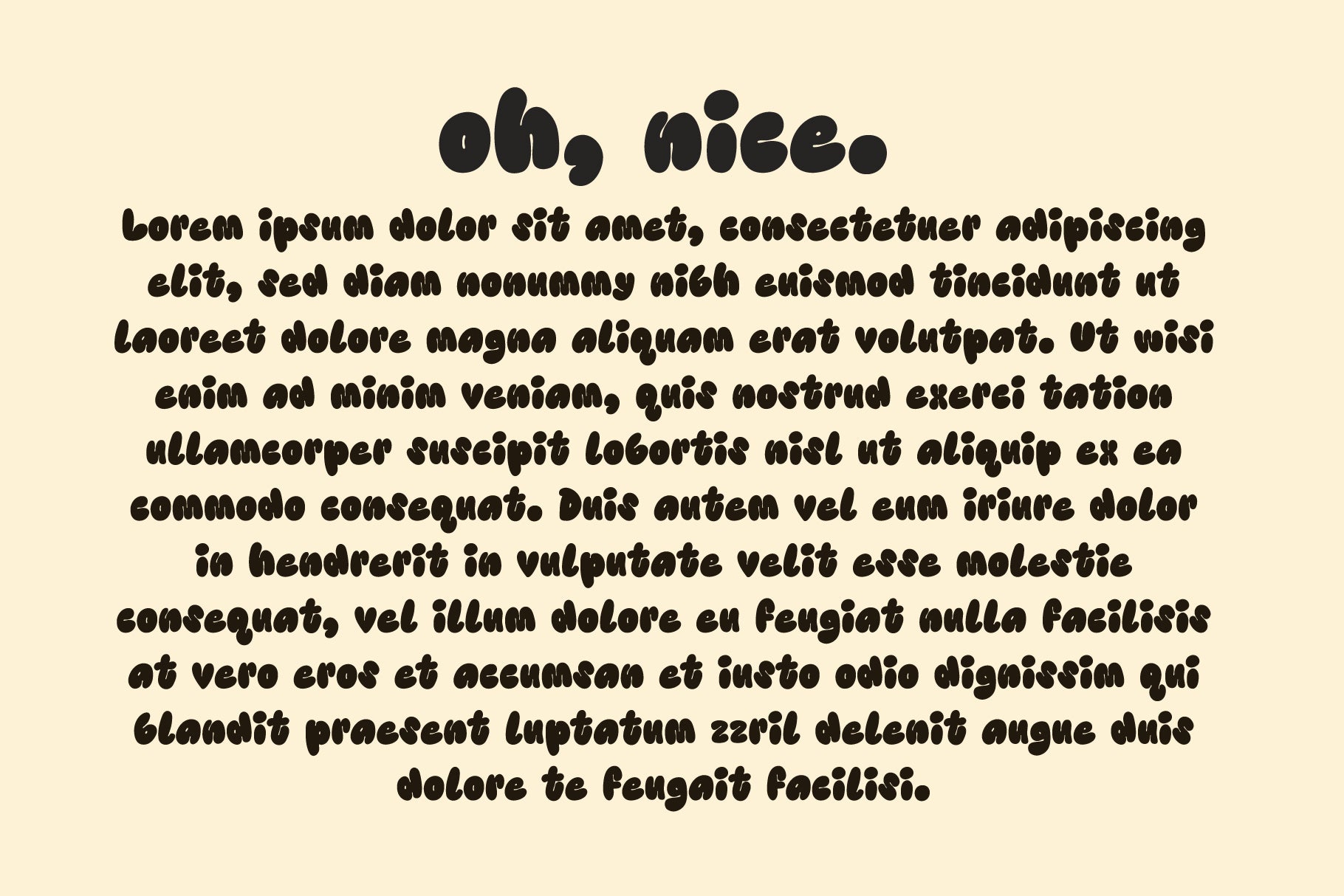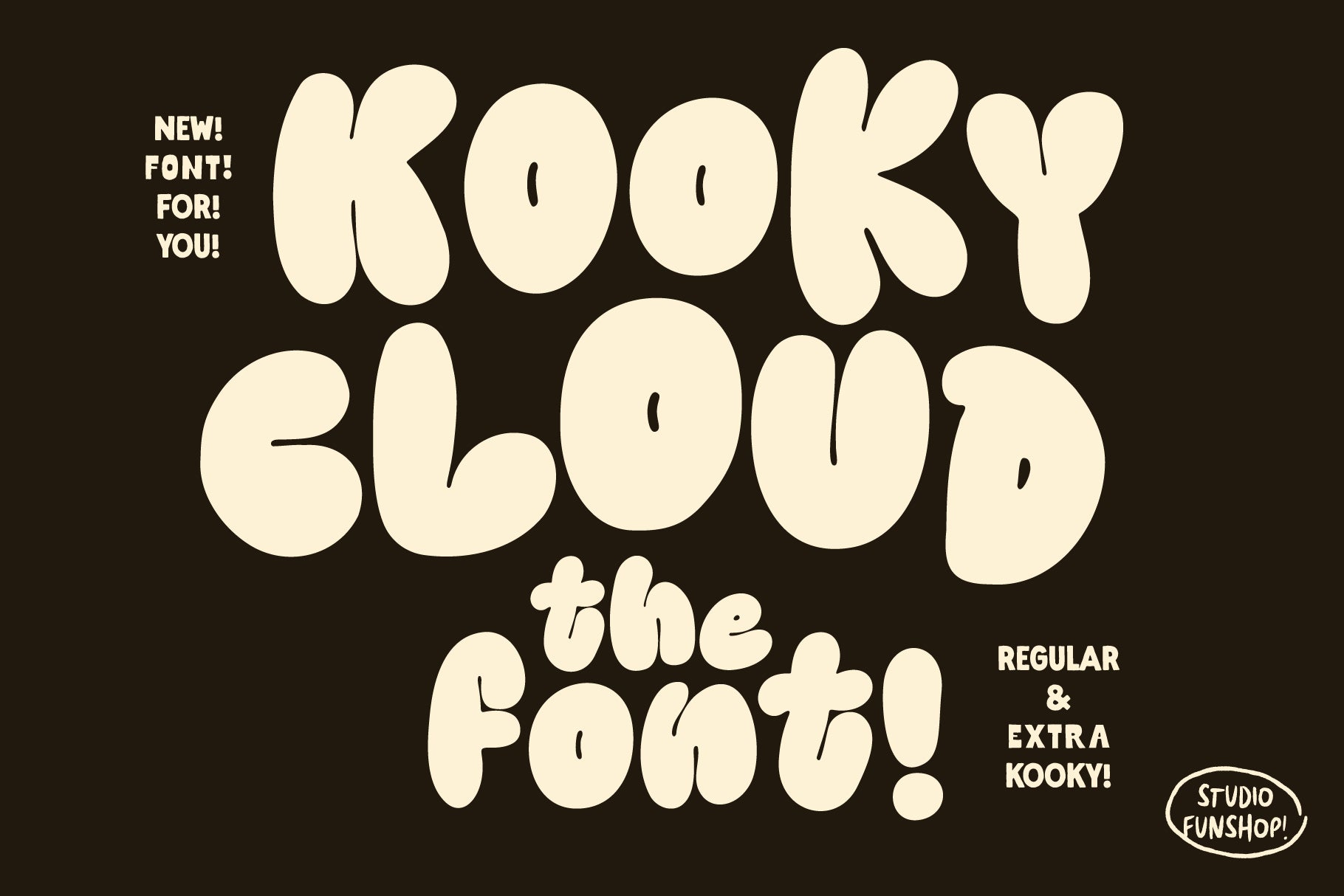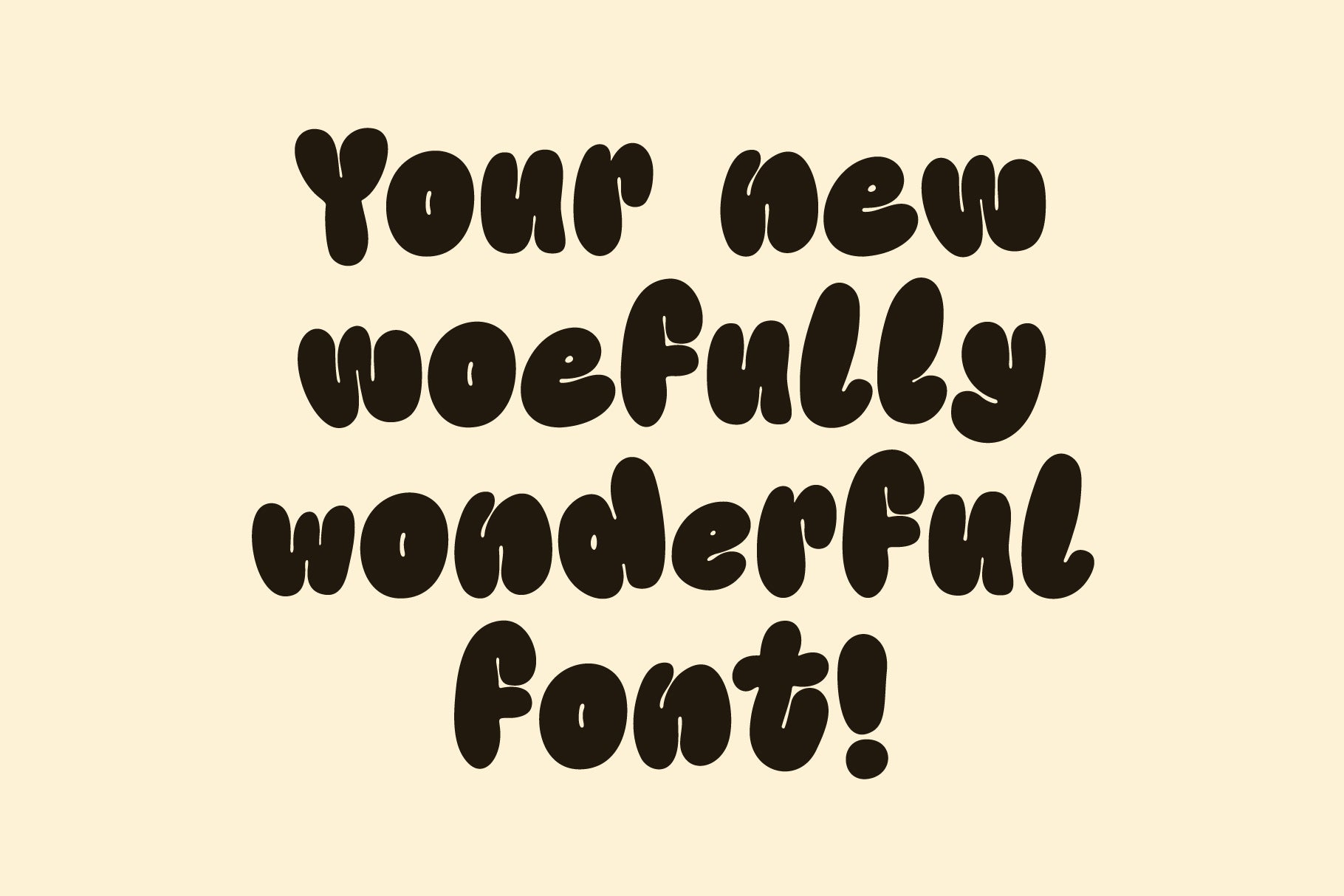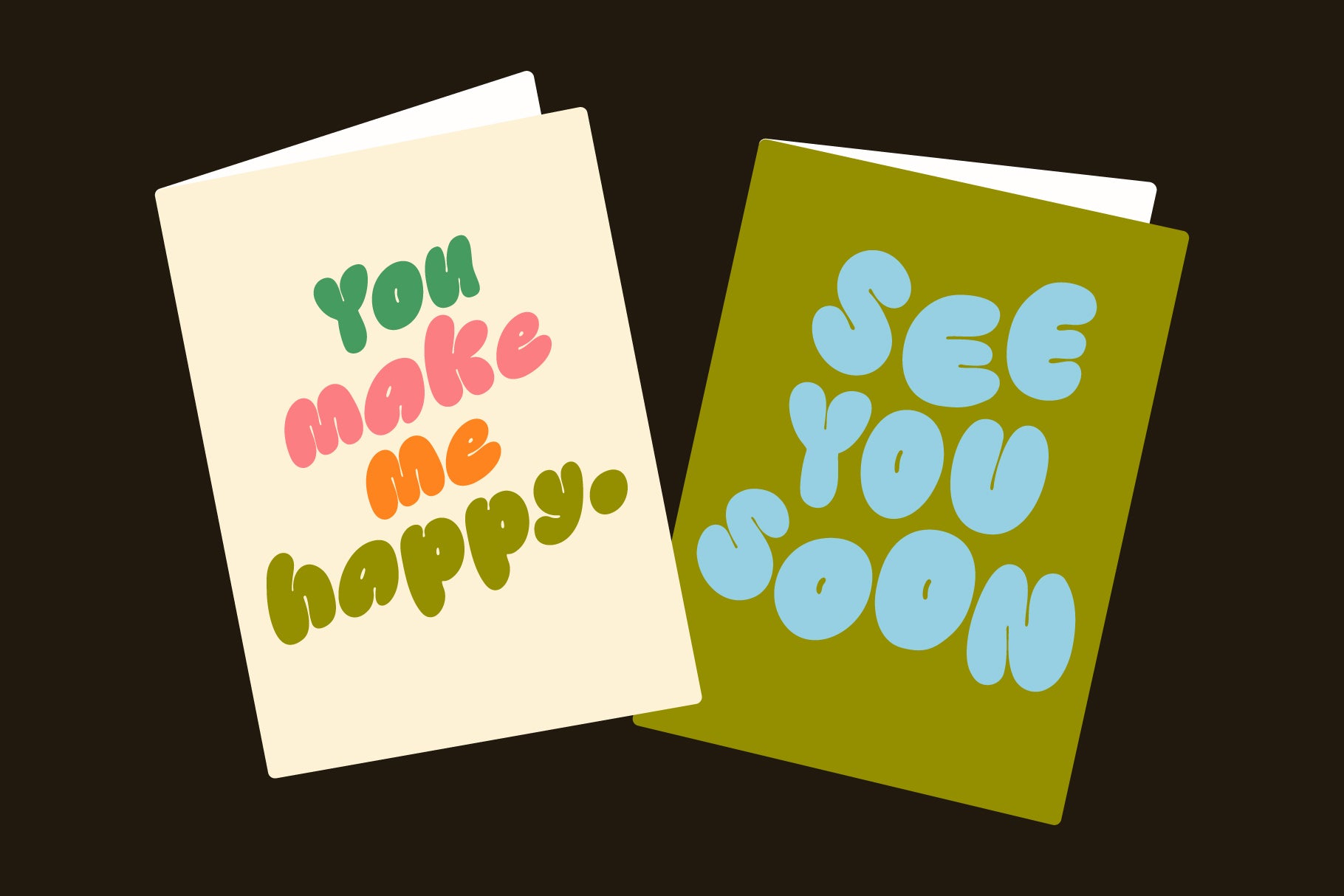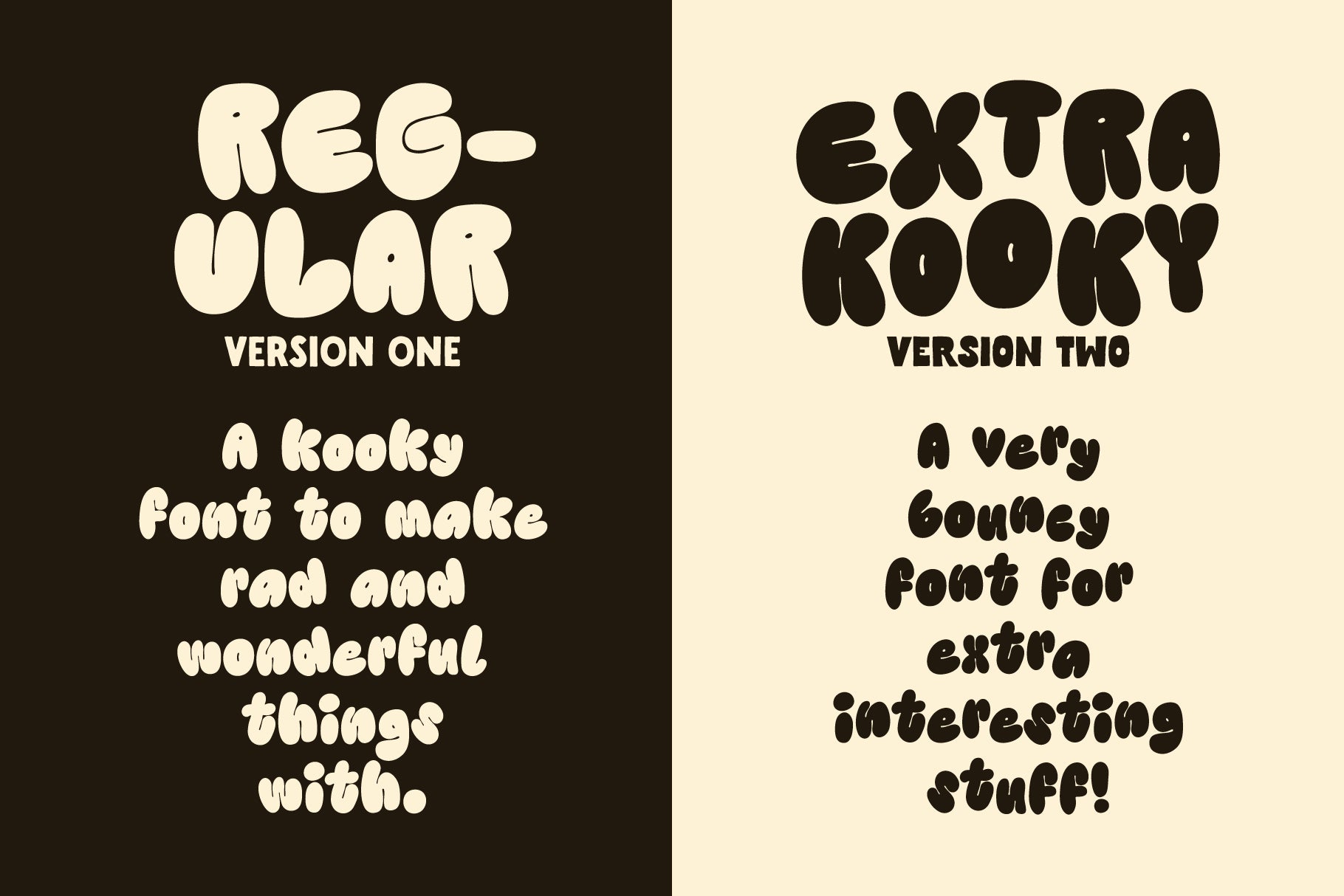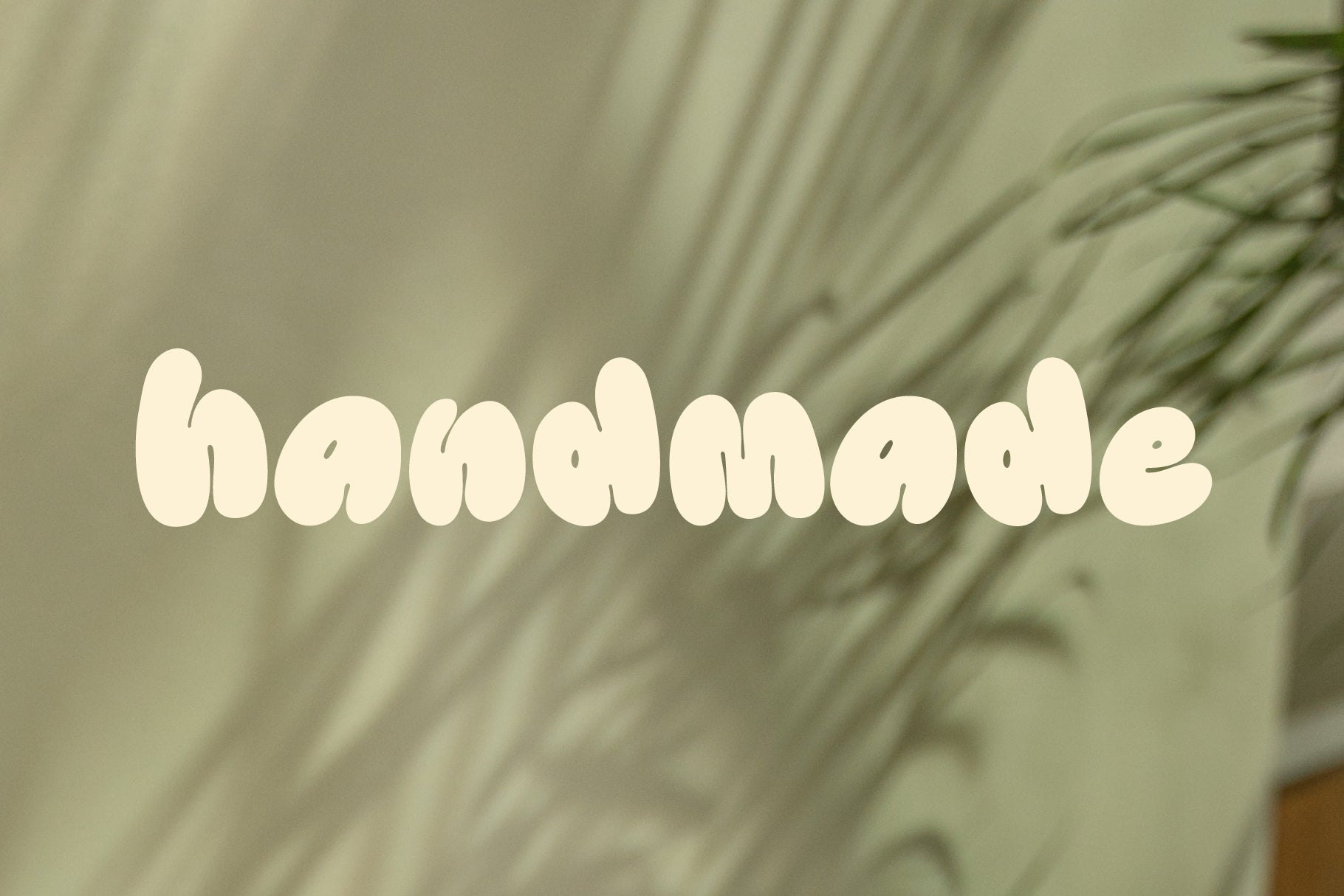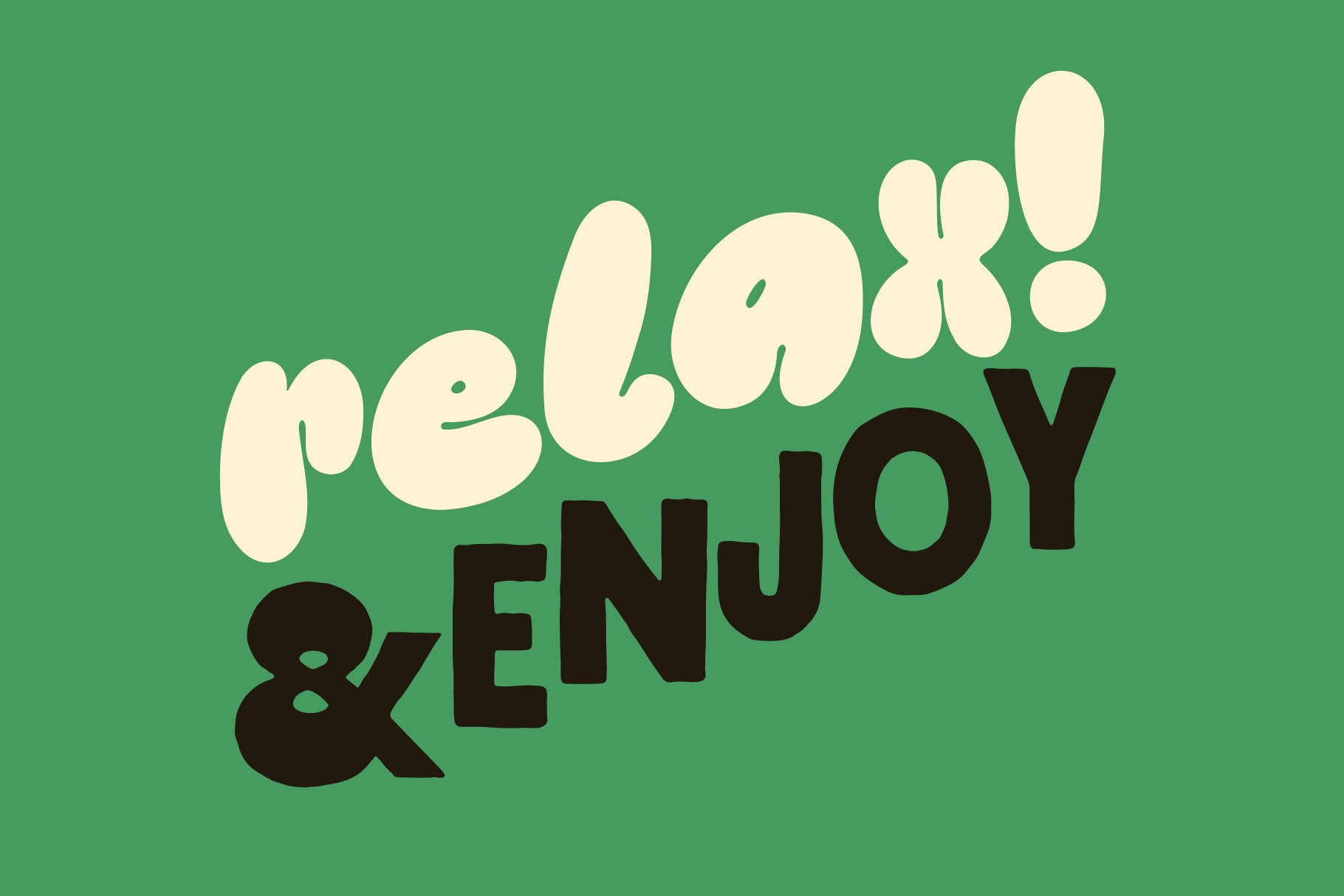
Kooky Cloud - Unique Bold Bubble Font
This is a hand-lettered font I made for optimum kookiness. It's oddly bubbly and woefully wonderful.
Includes an alternate letter for uppercase and lowercase Aa-Zz. Plus Alternates for !,?, and &. Looks great for logos, quotes, art, signs, titles, and a handmade touch. Enjoy!
What's in the font? Uppercase and lowercase Letters Aa-Zz! Numbers! Symbols! Punctuation! (see slides)